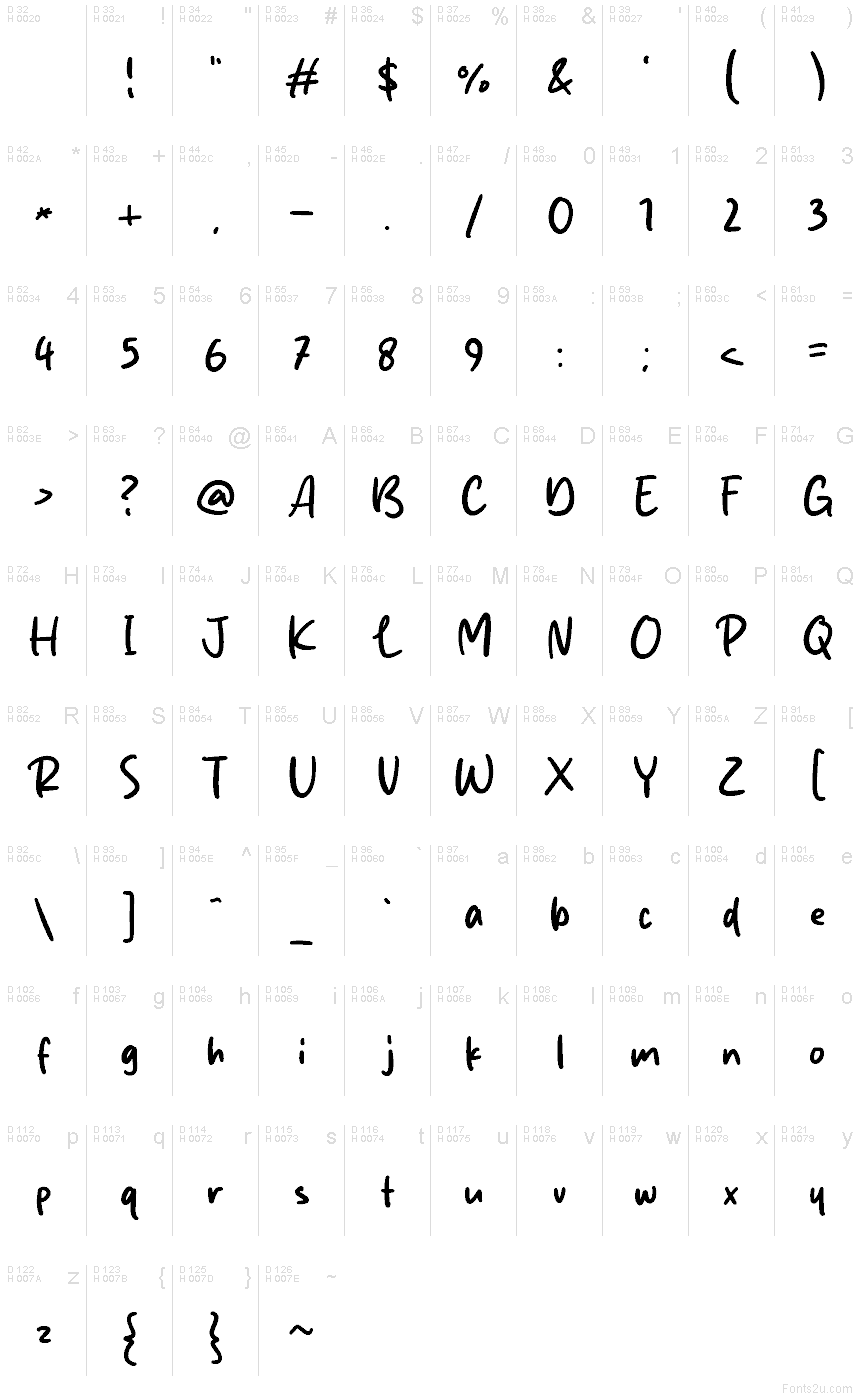
Jhon Max
Jhon Max font by MJType is a free handwritten font with a casual vibe and modern aesthetic. The approachable character and expressive curves of this font make it suitable for every use that requires an intimate tone.
Designers can use Jhon Max in wedding invites, postcards, food branding, business cards, social media posts, or packaging designs. This typeface can also be featured in magazine front pages or article titles.